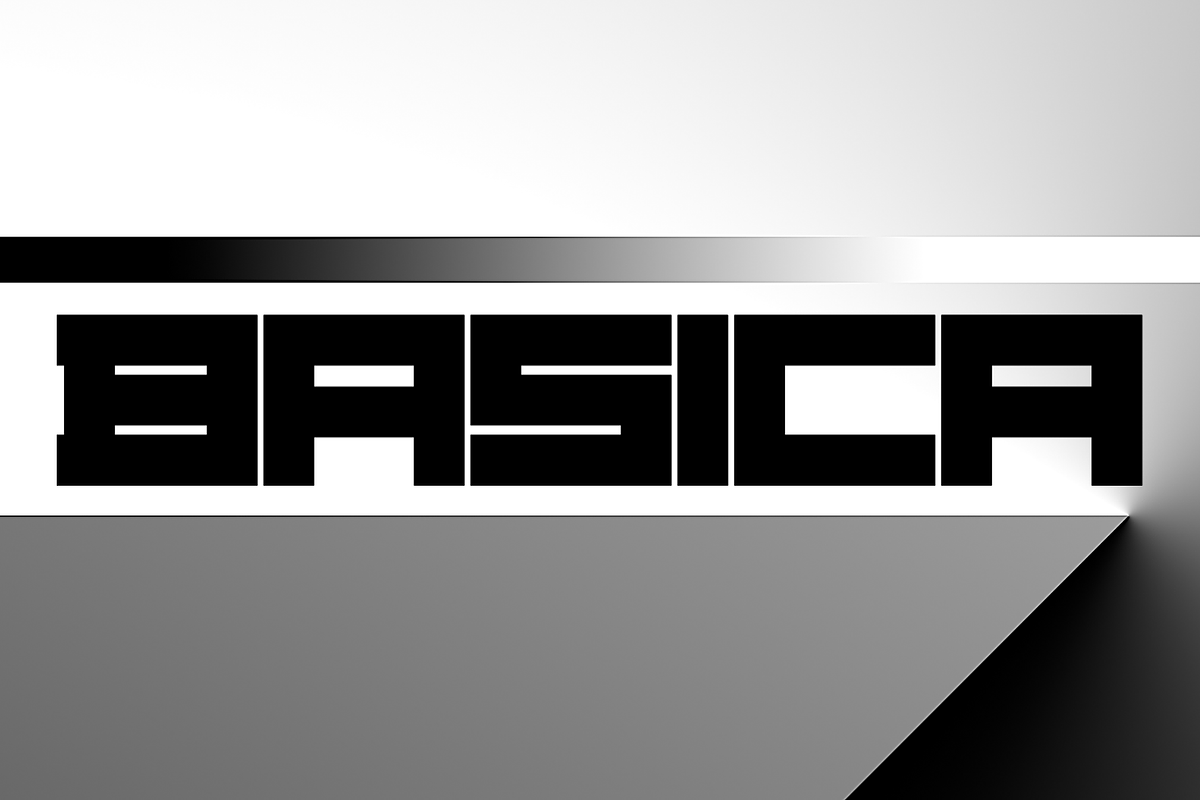
Please note, to use this font for commercial purposes, you must purchase the full version. Basica v15 is a sleek and modern sans-serif font that offers clean lines and versatile letterforms, making it ideal for a wide range of design projects. Whether you’re working on websites, branding, logos, or editorial designs, Basica v15 provides a professional and polished look. Its simplicity and legibility make it perfect for both digital and print applications. Test it out and enjoy free download access for personal use. Discover the elegance and clarity of Basica v15 Font Free Download before purchasing the commercial license. Elevate your design projects with the refined style of Basica v15.